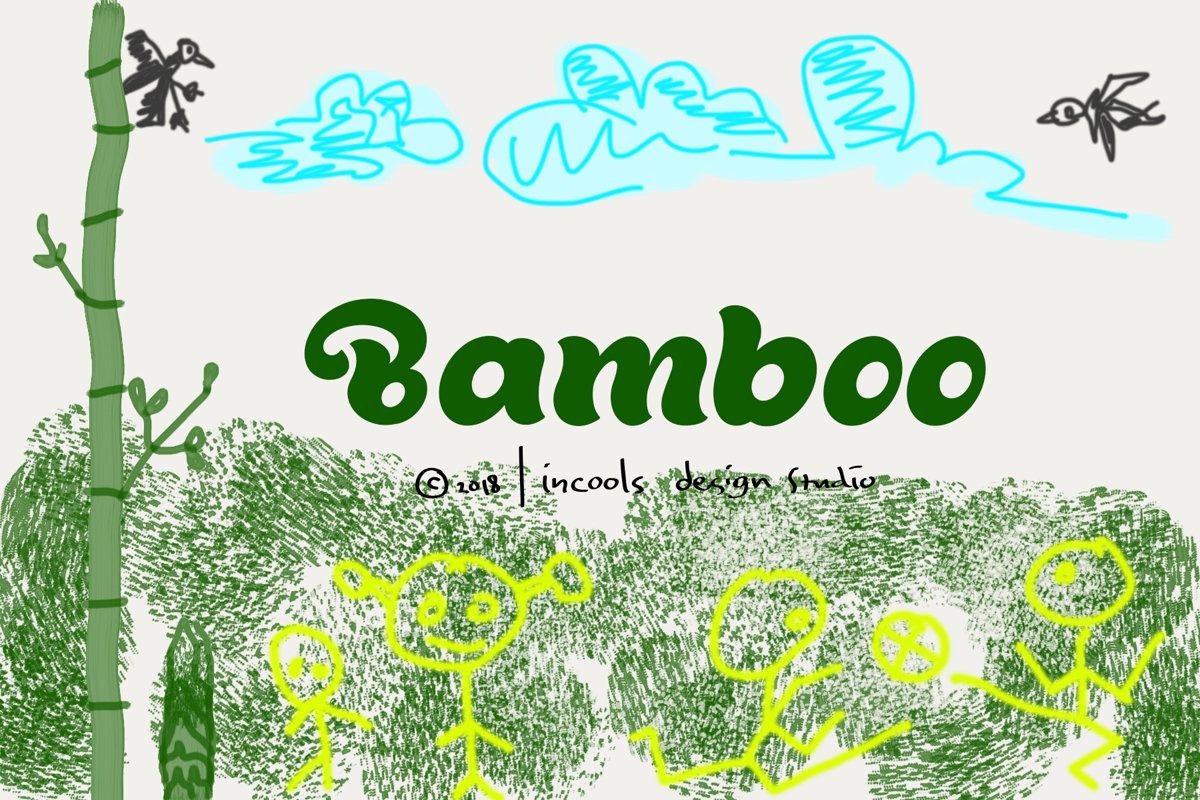
Bamboo
BAMBOO
Little Fat Bold font which appear in funny shape, but elegant in the other way.
Inspired from children innocent soul, lovable in every step they take. in every thing they did.
the honesty of their mind let me to thing how to put it in shape of letter, bit by bit, one by one.